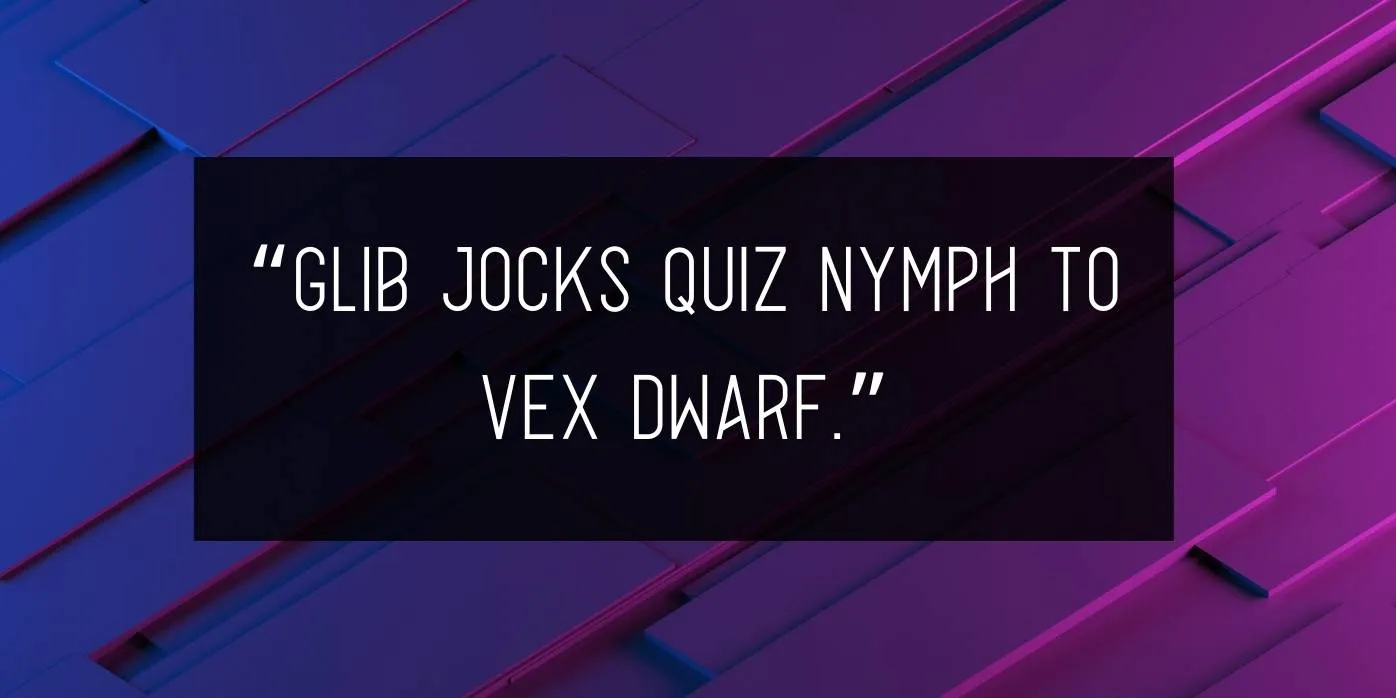
Alpha Font
Here, we introduce a new stunning typeface named Alpha Font It is a sans serif typeface developed and published by Callum Finn. This attractive typeface has been designed with both web and print design in mind and includes 4 different styles – regular, bold, italic, and bold italic. Finn has also released a free version of Alpha Typeface which includes the regular style only. This tremendous typeface comes in more than 158 outstanding characters like characters including various ligatures, fractions, ordinals, and currency symbols.
It supports Extended Latin, Cyrillic, and Greek languages. You will use its similar sf ui text font that is best for different designs. Alpha Typeface has a very refined look which makes it perfect for use in headlines, titles, or even paragraphs of text. The regular style is very versatile and can be used for both body copy and display purposes.
One of the best things about Alpha Typeface is that it’s extremely legible in small sizes. This is thanks to the slight increase in x-height and the well-balanced letterforms. It will provide the facility of generator tools for different designs.